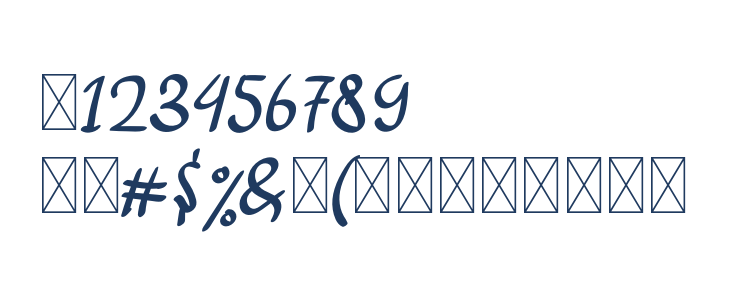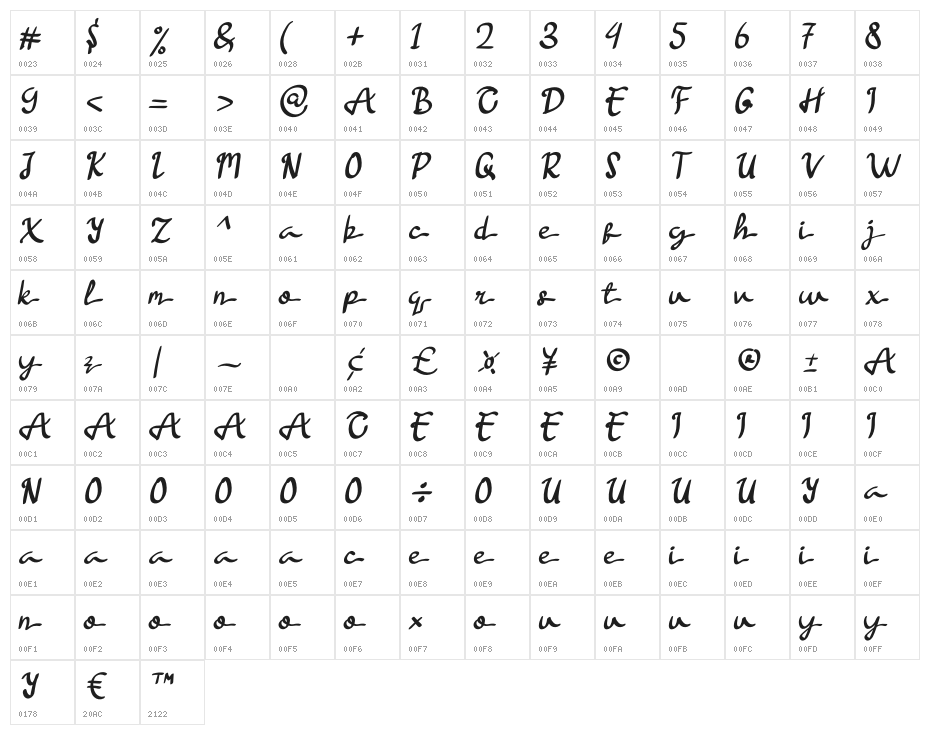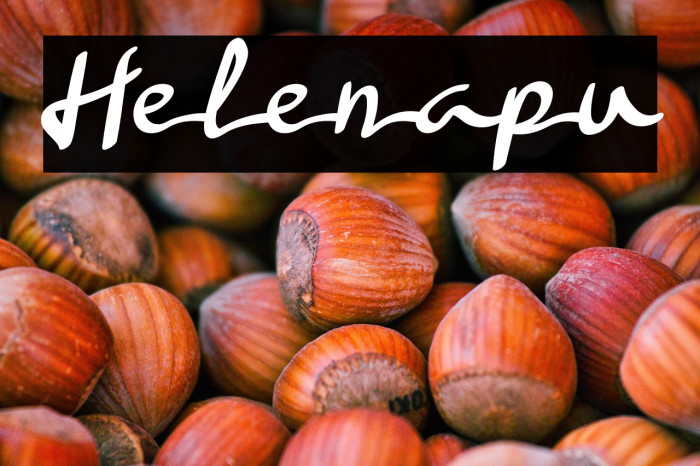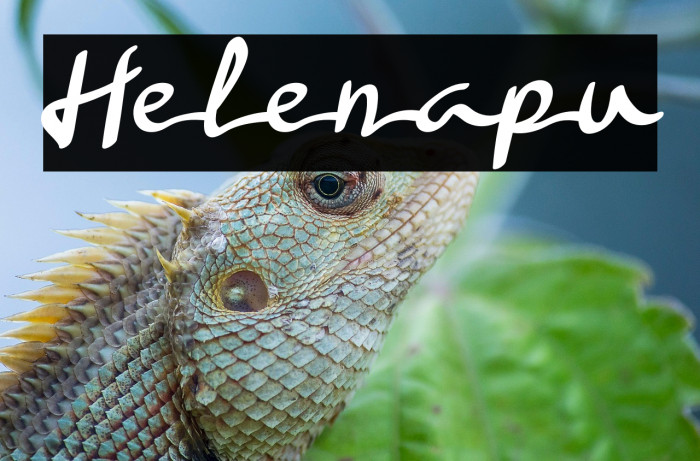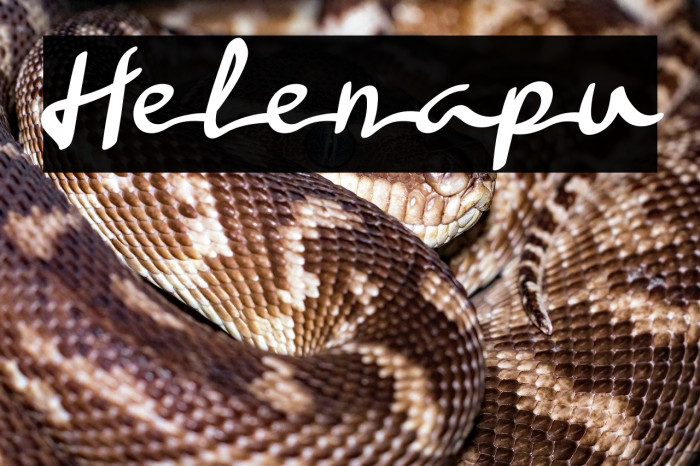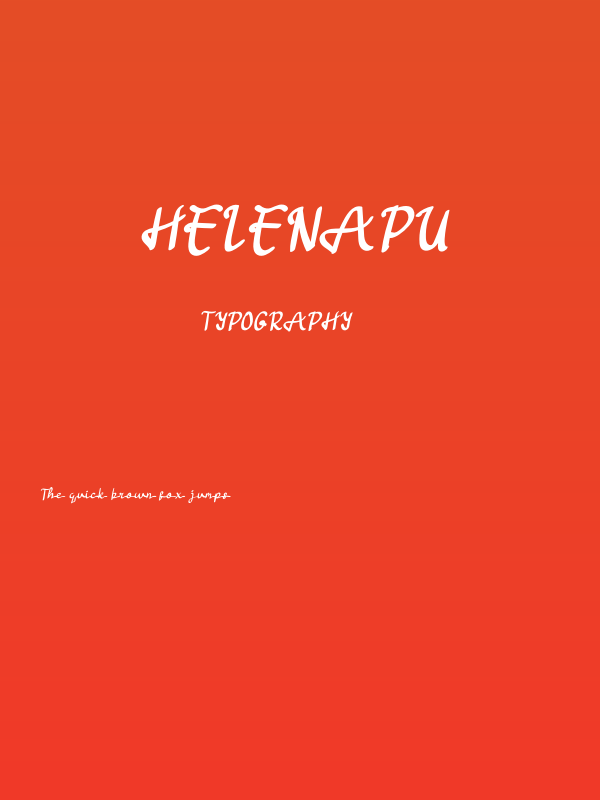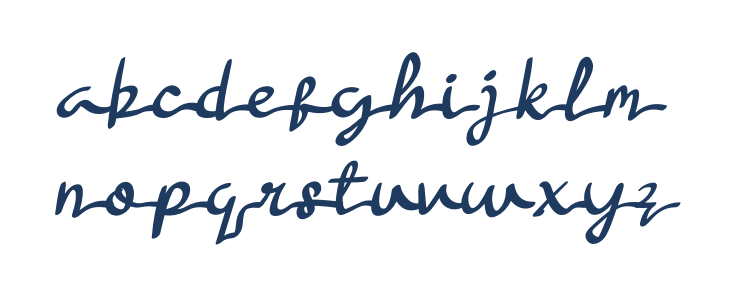
Helenapu Font
Helenapu Description
This font features a flowing, cursive style with elegant, sweeping strokes that give it a handwritten appearance. The uppercase letters are bold and slightly slanted, with distinctive loops and curves that add a touch of sophistication. The lowercase letters maintain a consistent style, with smooth connections between characters, enhancing the script-like quality. The numerals are bold and clear, matching the overall aesthetic of the font. Special characters are designed to complement the alphabet, maintaining the same fluidity and elegance. This font is ideal for projects that require a personal, yet refined touch.
HELENAPU UPPERCASE
HELENAPU LOWERCASE
HELENAPU OTHER CHARS
| Overall Style | Elegant, Handwritten |
| Proposed Projects | Ideal for wedding invitations, greeting cards, personal branding, and elegant logos. |